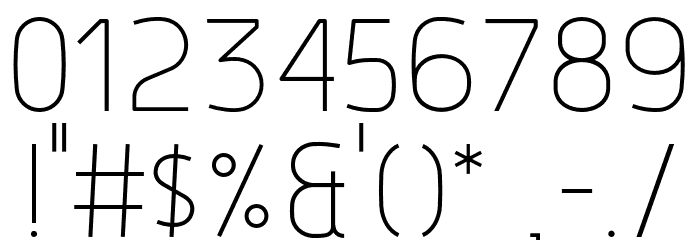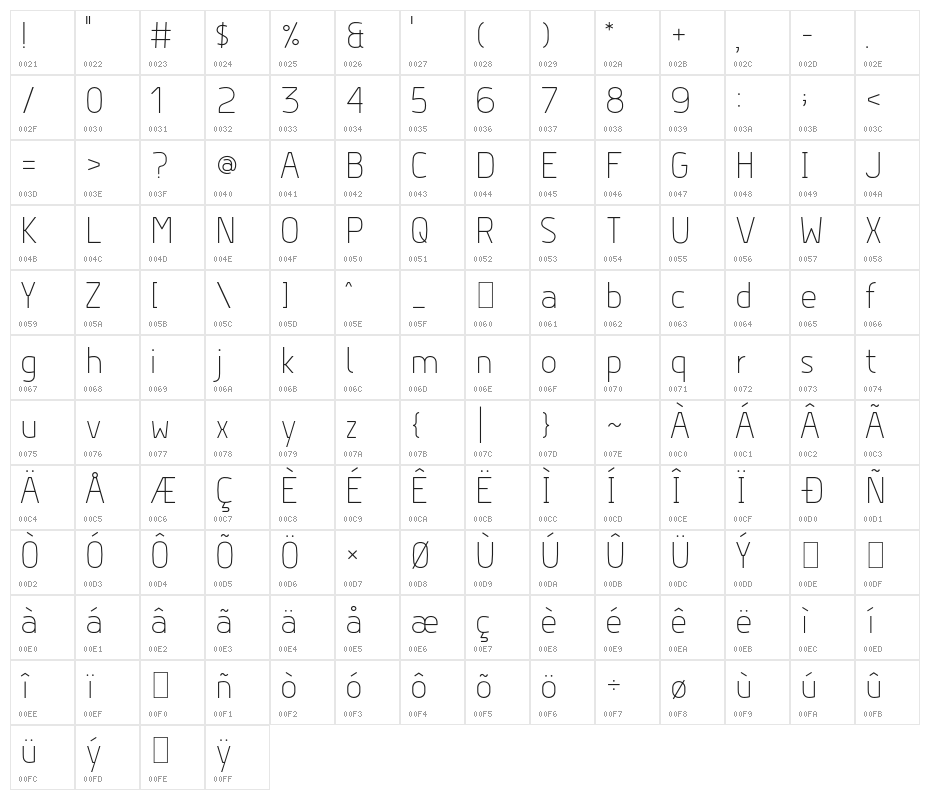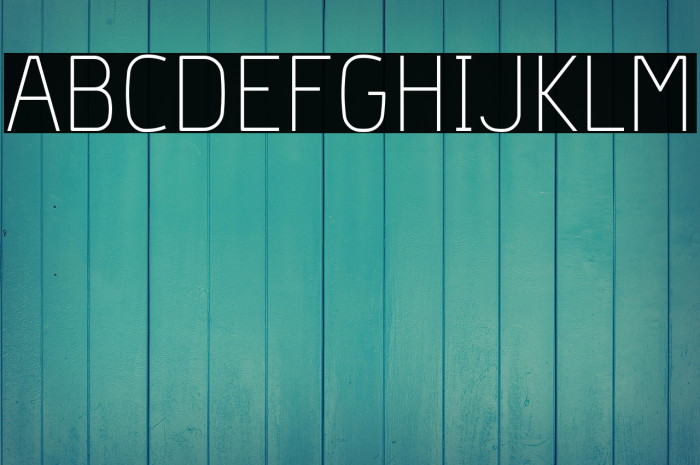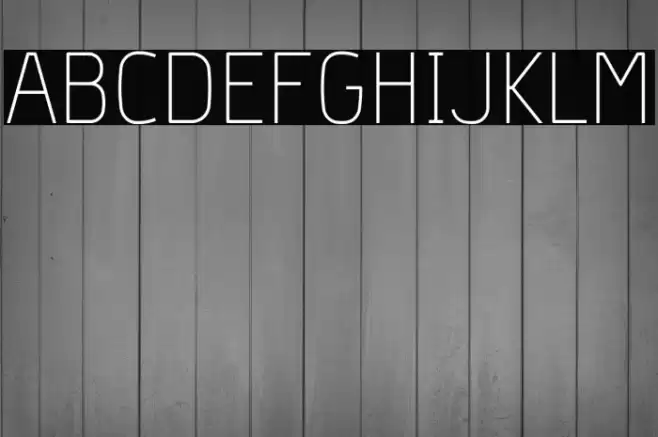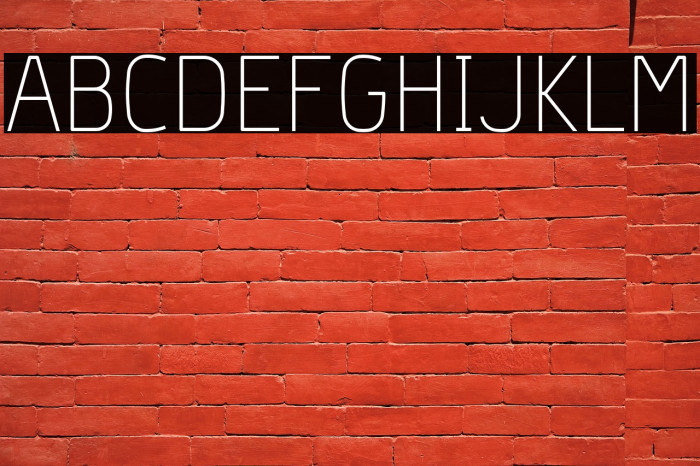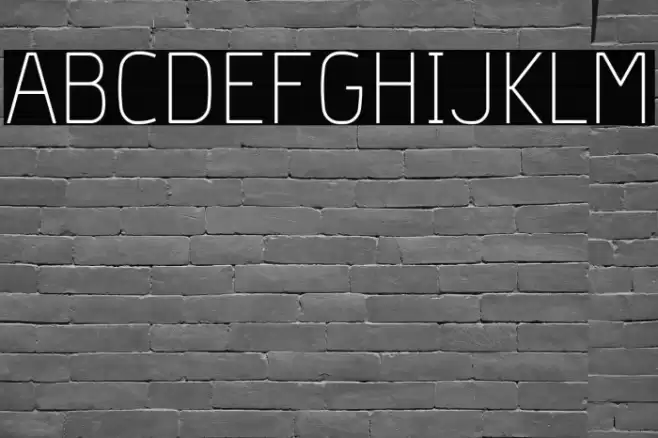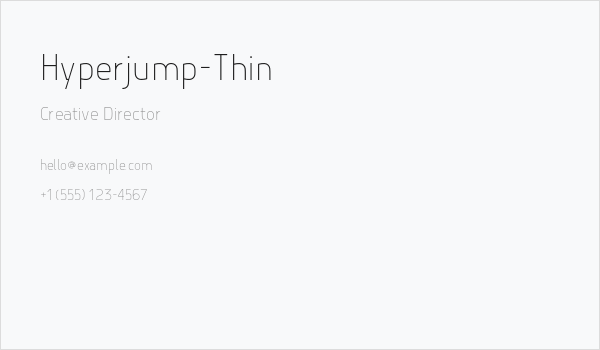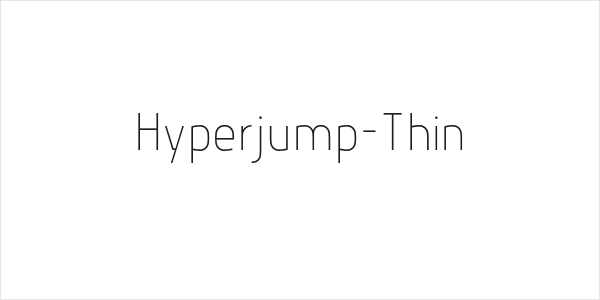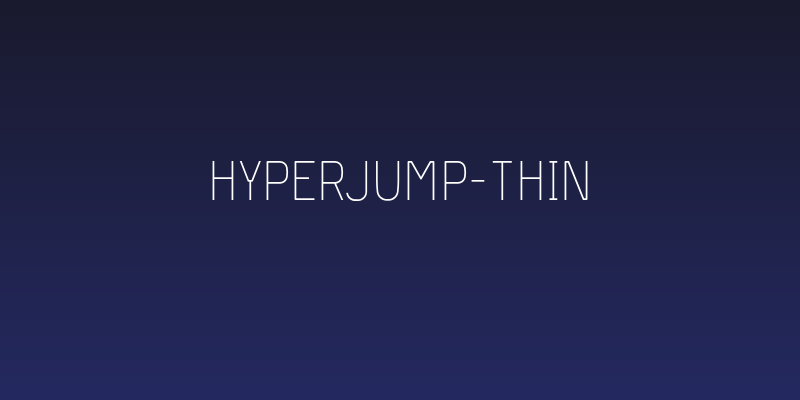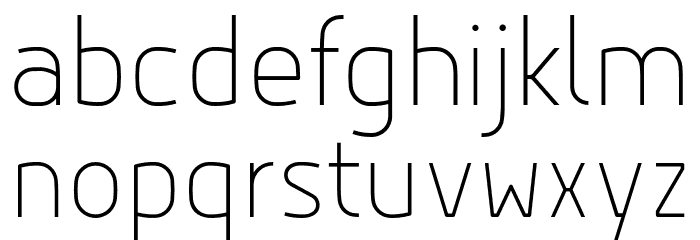
Hyperjump-Thin Font
Hyperjump-Thin Description
This font features a clean and modern aesthetic with a thin, streamlined appearance. The characters are uniformly constructed with a consistent stroke width, giving it a sleek and minimalist look. The uppercase and lowercase letters maintain a geometric structure, while the numerals and special characters are designed to complement the overall style. The font's simplicity and elegance make it suitable for a variety of design applications, offering a contemporary feel that is both professional and approachable.